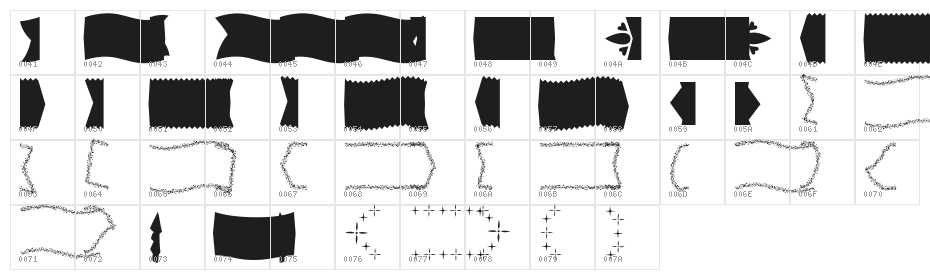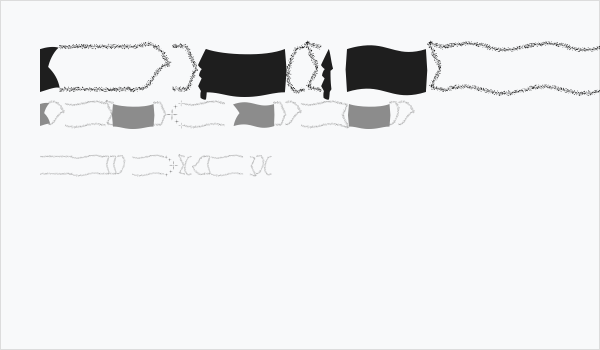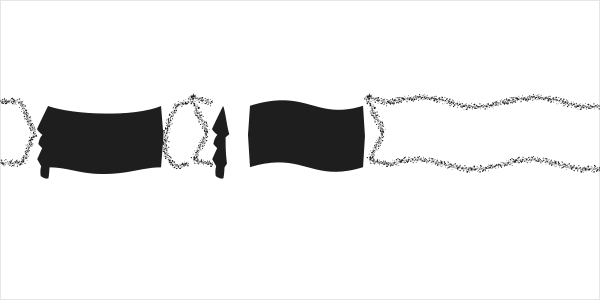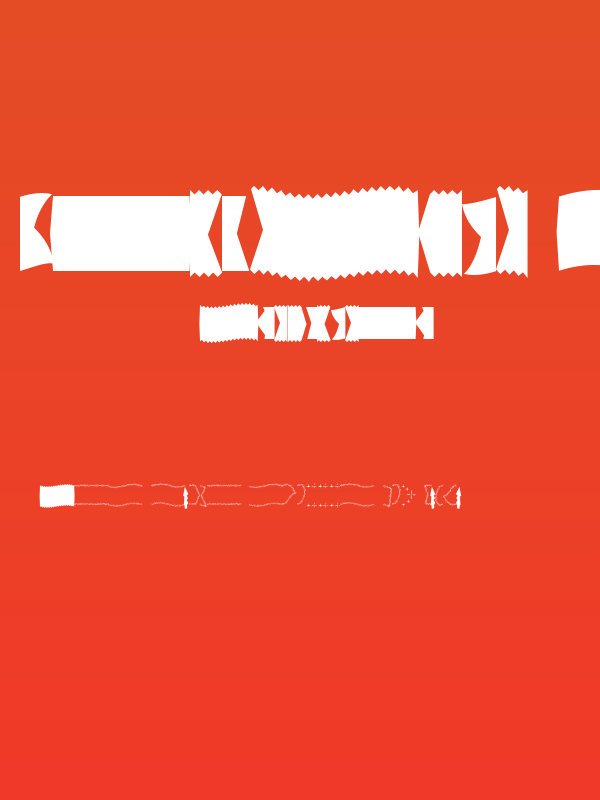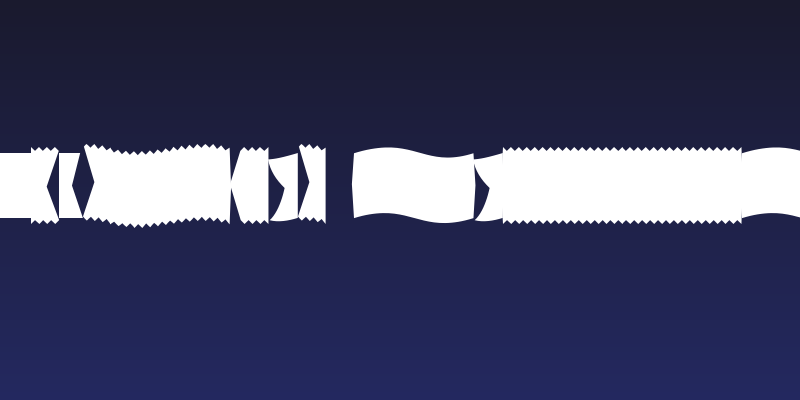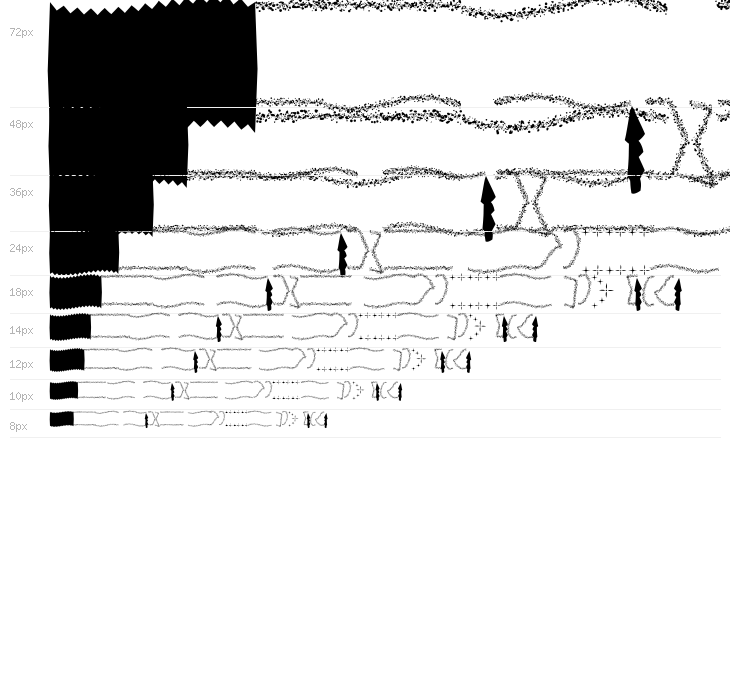
Christmas Banners Font
Christmas Banners Description
A collection of decorative banner and ribbon shapes with wavy, zigzag, and textured edges, some featuring star or sparkle embellishments. The designs evoke a festive, handcrafted feel suitable for holiday or celebratory themes.
Overall StyleDecorative, Festive, Handcrafted
Use CaseDecorative elements for banners, headings, and festive design accents.
Proposed ProjectsHoliday cards, party invitations, event posters, scrapbooking, festive web graphics.